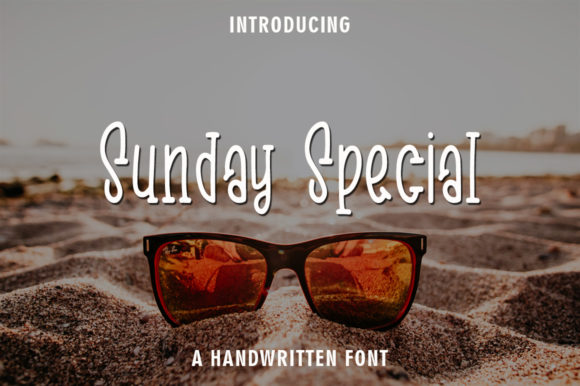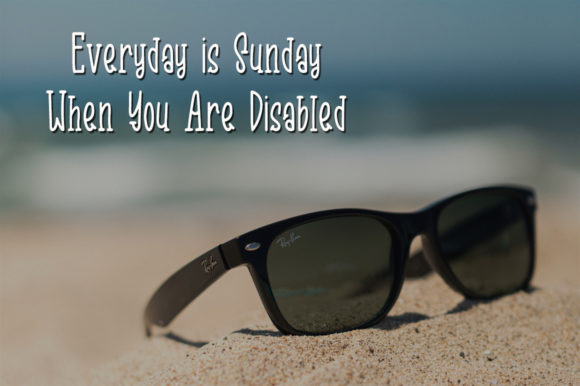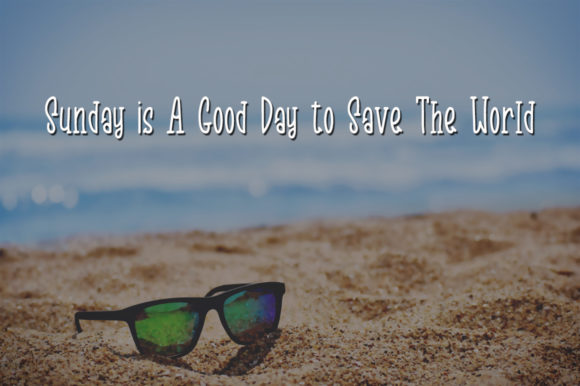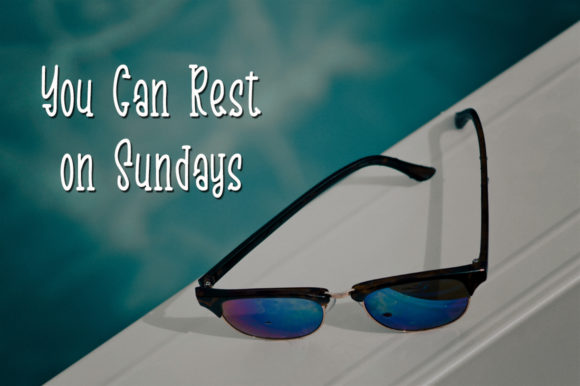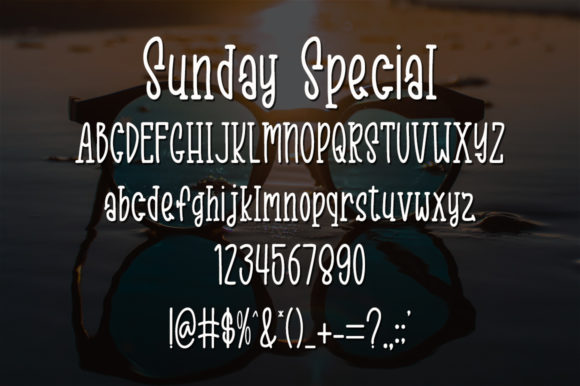
Sunday Special Font
About Sunday Special Font
Sunday Special is a casual, fun handwritten font. Clean and a little bit quirky, this font is the perfect fit for all of your logos, branding, social media, and crafty DIY projects.